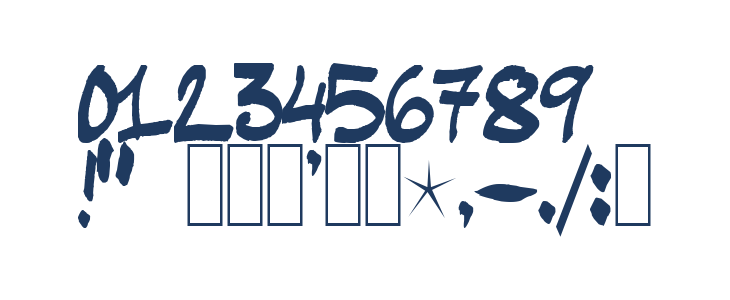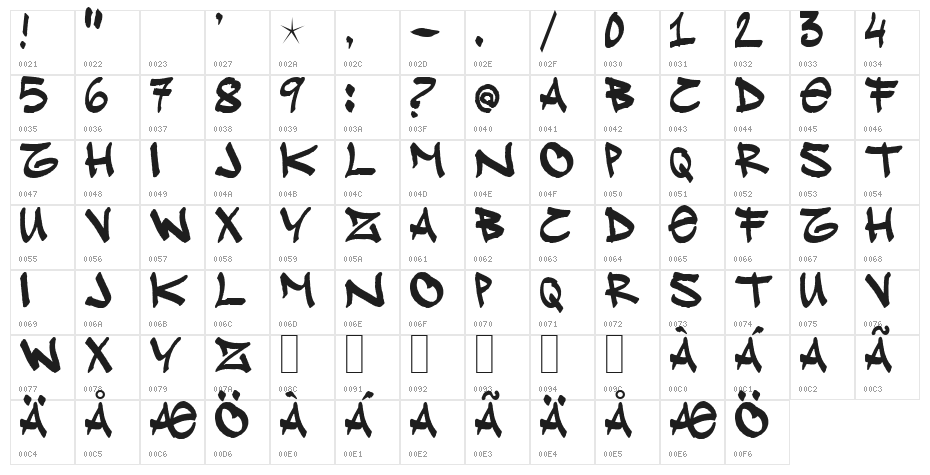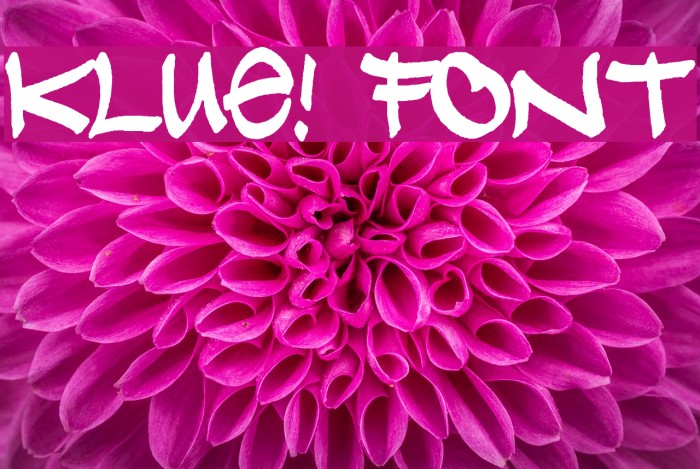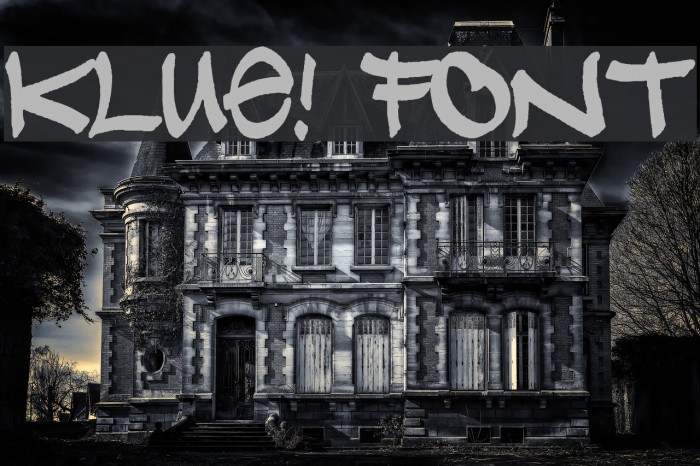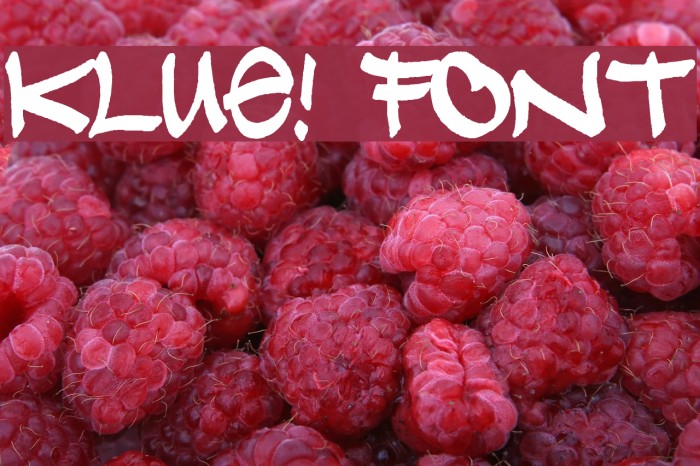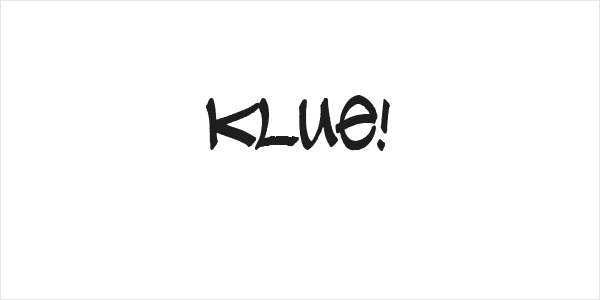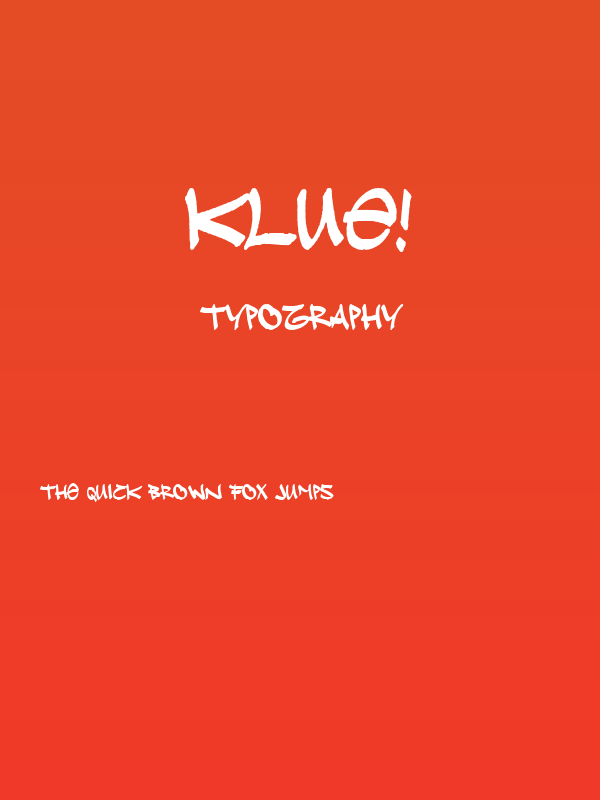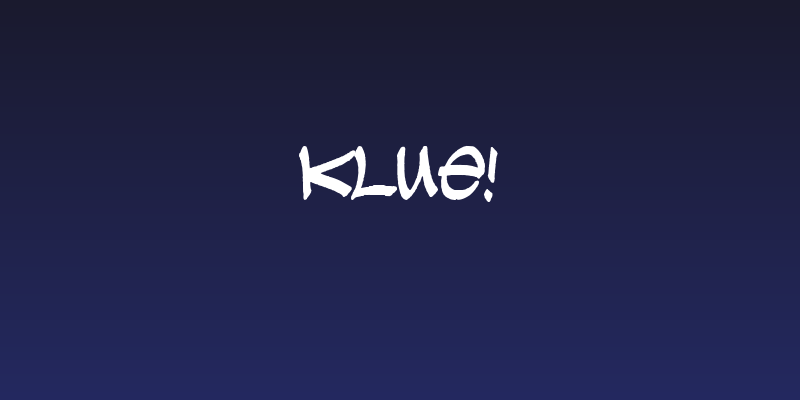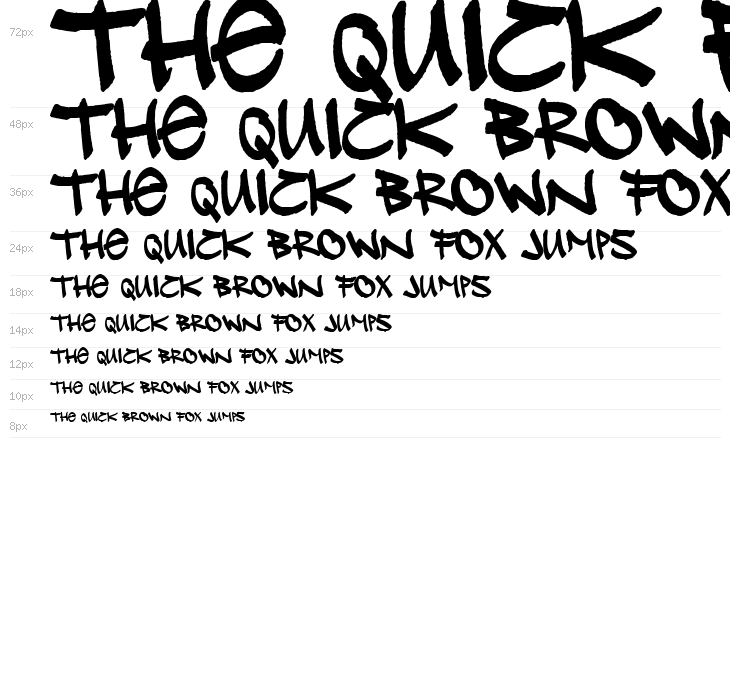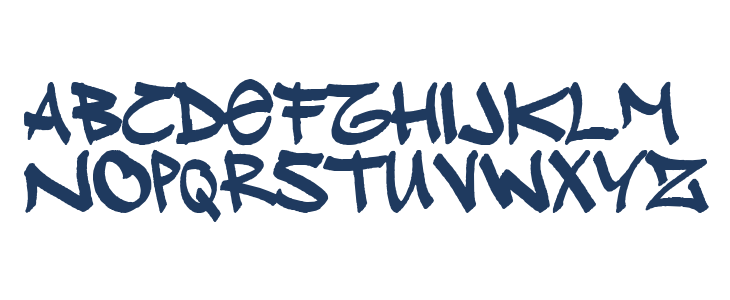
Klue! Font
Klue! Description
This font features a bold and dynamic handwritten style, characterized by its energetic and playful strokes. The letters have a brush-like appearance, with varying thickness that adds a sense of movement and spontaneity. The uppercase and lowercase letters maintain a consistent style, while the numbers and special characters complement the overall aesthetic. The font's unique flair makes it stand out, ideal for projects that require a personal touch or a creative edge.